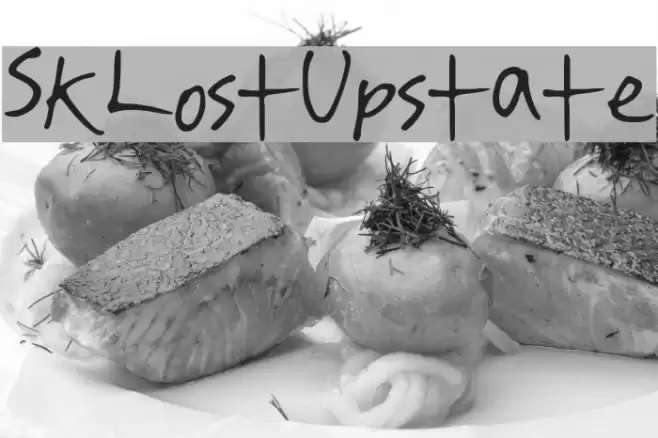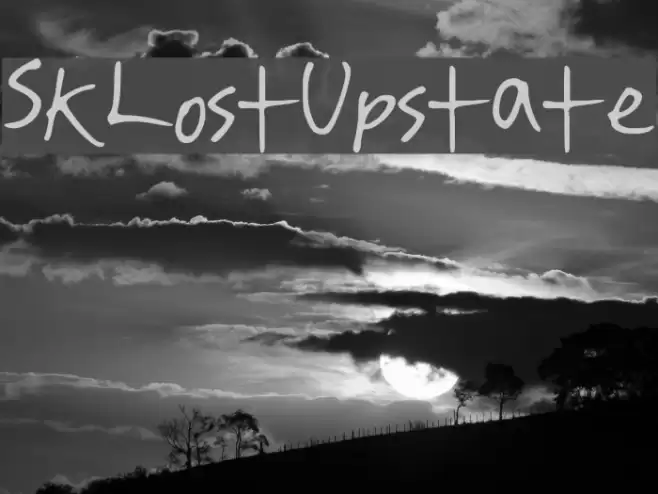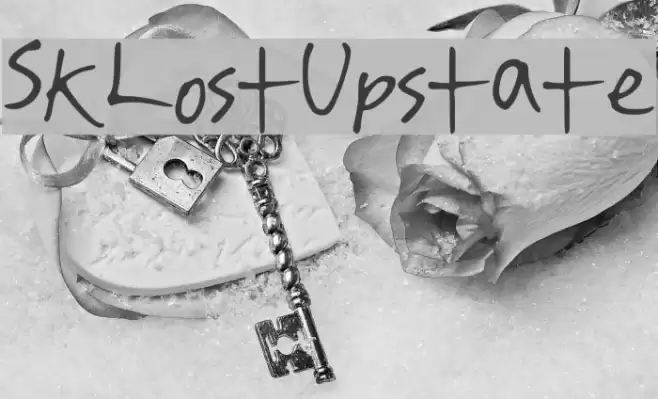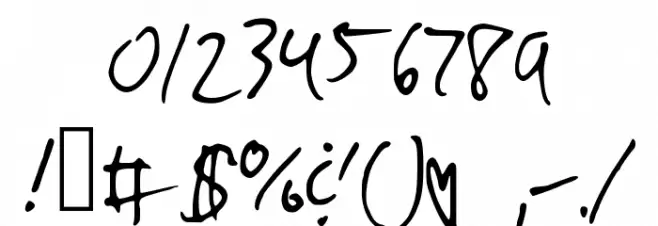
SKLostUpstate Font
SKLostUpstate Description
This font exudes a casual and handwritten style, characterized by its fluid and organic strokes. The letters have a playful and informal appearance, with varying line thickness that adds a sense of dynamism and movement. The uppercase letters are bold and slightly irregular, while the lowercase letters maintain a consistent flow, enhancing readability. The numbers and special characters follow the same informal aesthetic, making the font versatile for creative projects. Its overall appearance is approachable and friendly, suitable for conveying a personal touch.
A casual, handwritten font with fluid, organic strokes and a playful appearance from Uncategorized fonts.
- Proposed Projects: Ideal for greeting cards, personal notes, informal invitations, and creative branding projects.
- Overall Style: Casual
- Use Case: Logos, Headlines, Informal Text